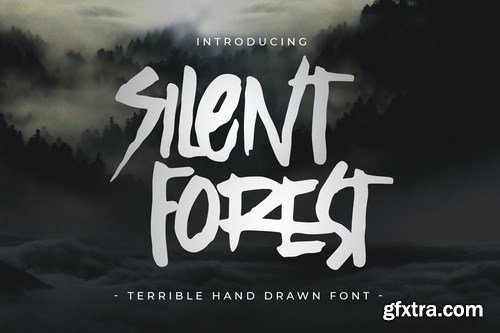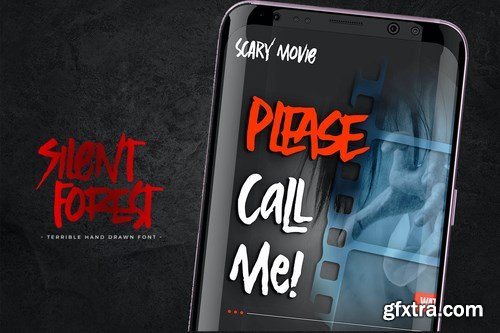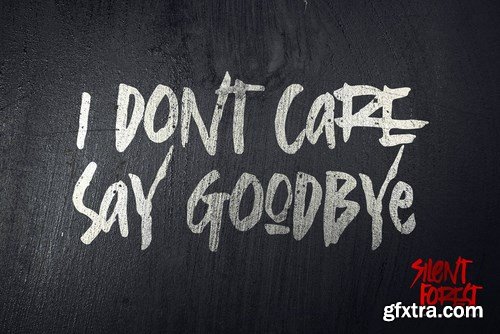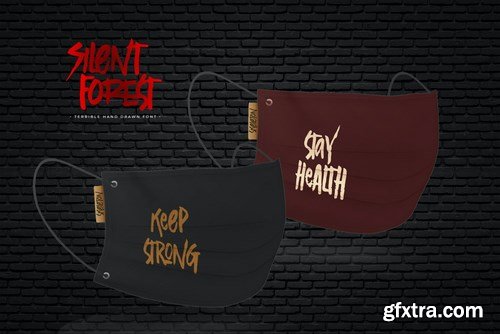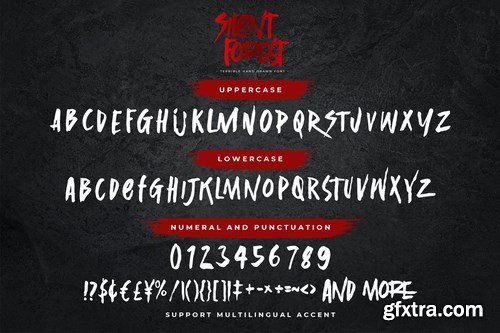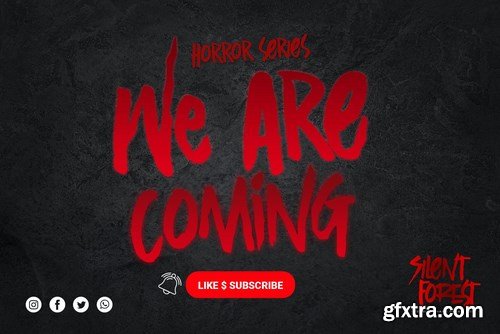
Introducing Silent Forest is a best Terrible Hand Drawn Font that is handwritten brush casually and quickly. Letters are made with brushes on Procreate. Then scanned and carefully drawn into vector format.
That is why Silent Forest has charming, authentic and relaxed characteristic more natural look to your text with a more natural look to your text. You can activate Ligature OpenType panel to make these two styles. It also has many alternatives and underlines that make your text and design more interesting. Silent Forest is perfect for homeware designs,branding projects, Logo design, Quotes product packaging
Standard glyphs
Silent Forest Alternate
Silent Forest Ligatures